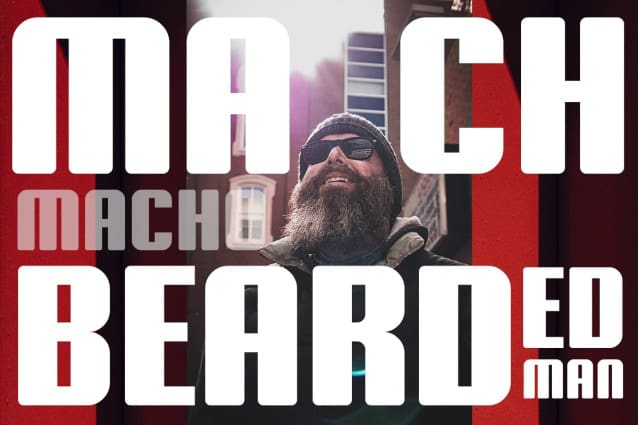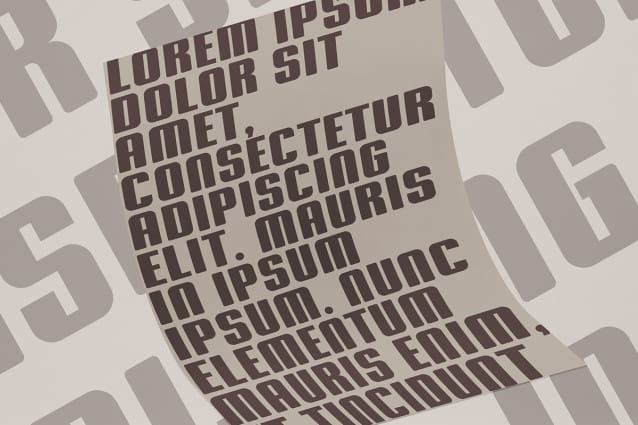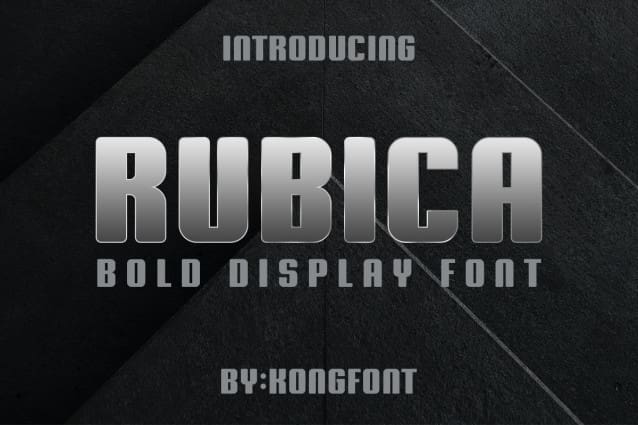
Rubica Font
Rubica Font – Modern Display Font is here as one of the best choices among other fonts. This font is a monoline script in bold font. Some of the letters are written in series and look beautiful.
Rubica Font – Modern Display Font is an legible font. This font type does not apply to prints that are too large or too small because it will reduce readability. It must be used with the appropriate font size so that it can give the maximum attractive impression.
Rubica Font – Modern Display Font can be applied to several things, such as product branding. It can use as brand tags, promotional posters, and shop signage. This font can use digitally when you want to promote products on social media. Apart from products, this font can use to promote a service, such as photography.
Rubica Font – Modern Display Font is one of the best fonts for quotes that contain motivation and encouragement. The beautiful shape of the letters will be good when combined with the appropriate ornaments and colors.